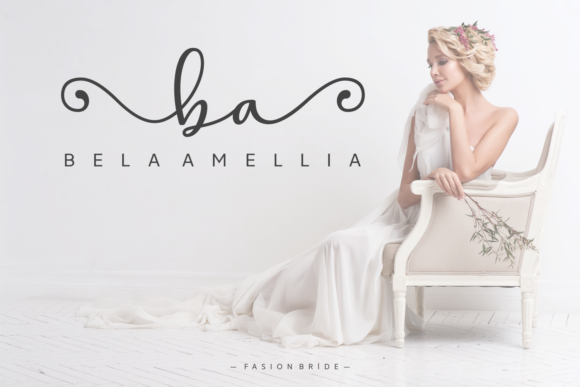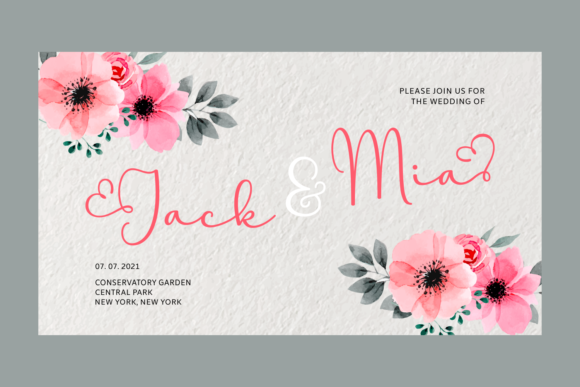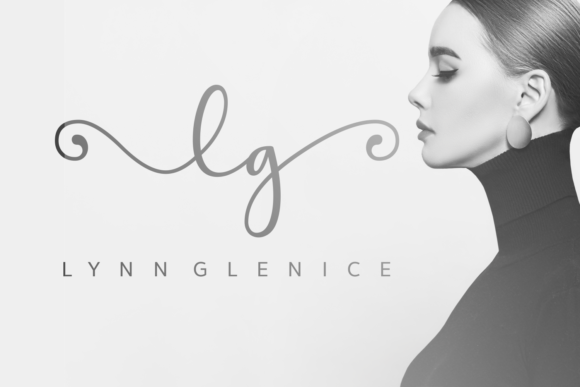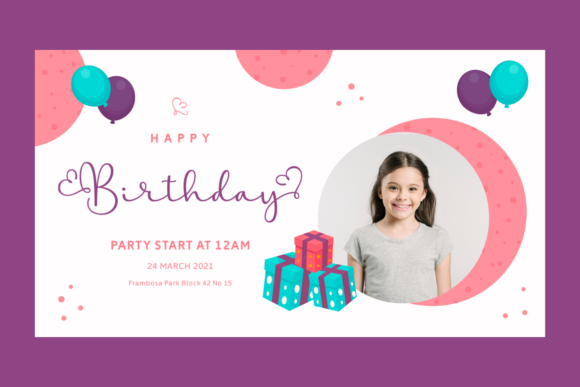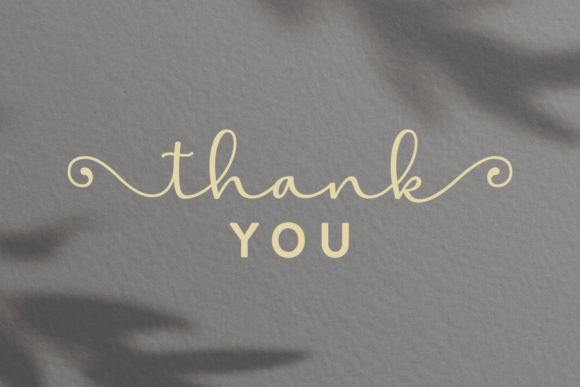
The Art of Elegant Typography: Discovering the Daffia Font
There’s something magical about holding a beautifully designed wedding invitation in your hands, the way the words seem to dance across the page, inviting you to a special moment in time. It’s these little moments that remind us of the power of typography to evoke emotions and create lasting memories. And for designers looking to add a touch of elegance to their work, there’s one font that stands out from the rest: the Daffia Font.
This stylish script font is designed to add a handwritten touch to any design, from wedding invitations and thank you cards to logos and business cards. With its PUA encoding, accessing all the glyphs and swashes is a breeze, making it a valuable addition to any designer’s toolkit. Whether you’re a seasoned pro or just starting out, the Daffia Font is sure to become a go-to choice for any project that requires a touch of sophistication and charm.
- Unique Characteristics: The font features a unique blend of modern and vintage elements, with intricate details and subtle texture.
Daffia Font Review
As a designer, I was excited to try out the Daffia font. Here’s my honest review.
- The unique blend of modern and vintage elements in Daffia makes it perfect for adding a touch of elegance to any design project.
- The font’s versatility allows it to be used in a wide range of applications, from headlines to body text.
- The font’s high legibility ensures that the text remains clear and easy to read, even at smaller font sizes.
- The font may not be ideal for projects that require a lot of bold or italic text, as the font’s bold and italic weights may not be as consistent as other fonts.
- The font’s uppercase letters may not be as well-designed as the lowercase letters, which can be a bit jarring in certain contexts.
- The font may not be compatible with all operating systems or software, which can limit its usability in certain situations.
Daffia is a solid font that can add a lot of character to a design project. While it has some limitations, its unique blend of modern and vintage elements makes it a great choice for designers looking to add some visual interest to their work.
Tip: Use Daffia Font for creative headings and titles to add a touch of elegance to your designs.
Tip: Use Daffia Font for professional-looking typography and add a touch of sophistication to your designs.
Tip: Use Daffia Font for presentations and documents that require a clean and modern look.
Daffia Font is ideal for:
- Creative headings and titles
- Professional-looking typography
- Presentations and documents that require a clean and modern look
Comparison to Daffia Font: Alex Brush has a more refined and polished feel, while Daffia Font has a more playful and quirky vibe. Alex Brush is suitable for high-end and professional projects, whereas Daffia Font is better suited for playful and creative designs.